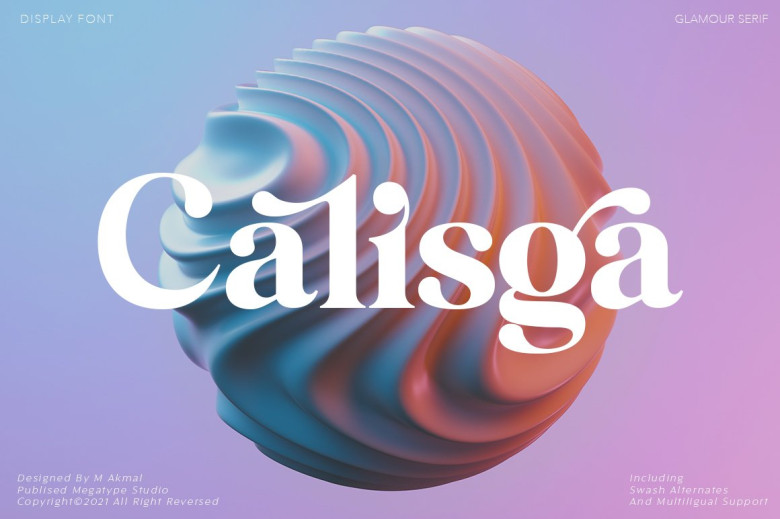
Calisga Font
Calisga is a Serif Display Font with a modern, and classy, fun, unique, and versatile style. It looks beautiful at display size and very readable in text size. Even more amazing this font have lot alternatives and relative that will make beautiful design projects.
Calisga – Glamor Serif Display Font is perfect for branding projects, logos, wedding designs, social media posts, advertisements, product packaging, product designs, labels, photography, watermark, invitations, or any project you are working on.
Calisga Serif Font